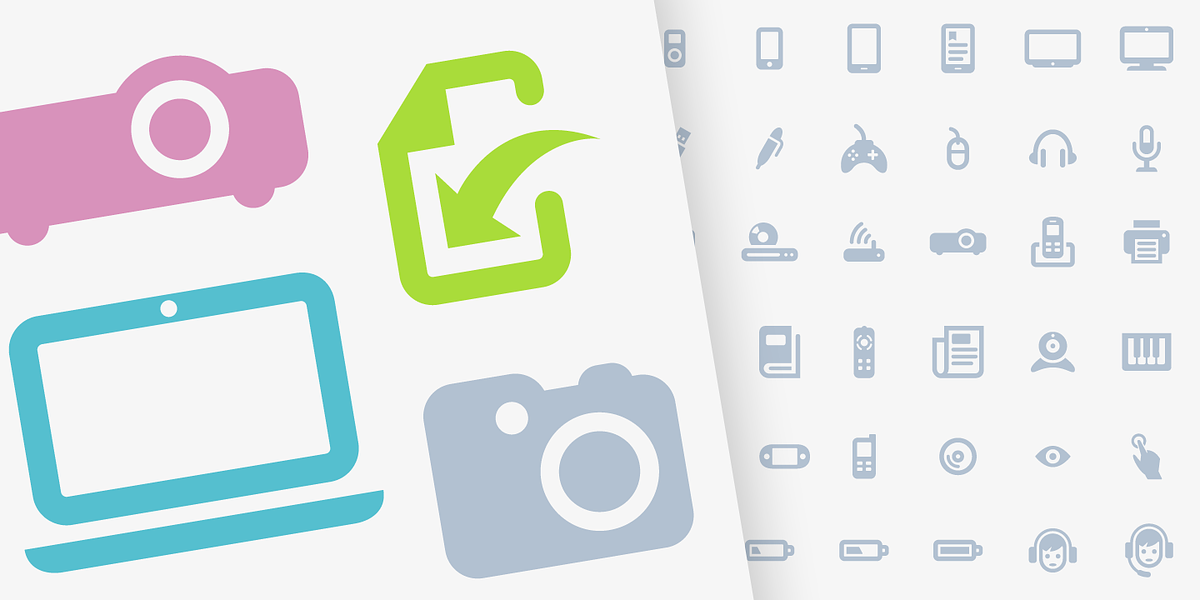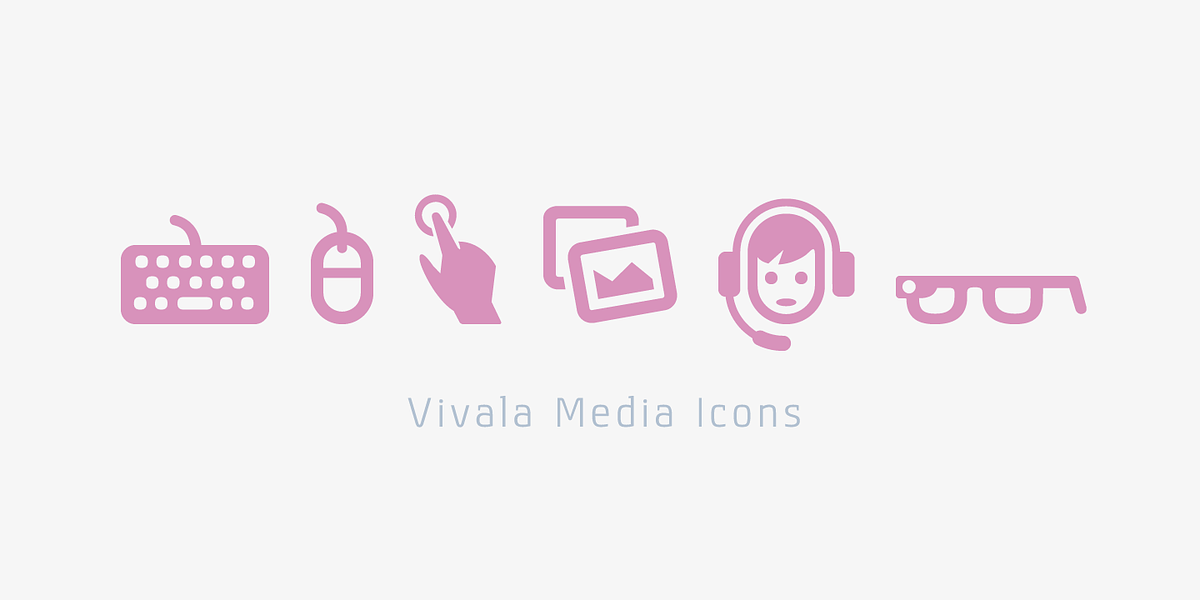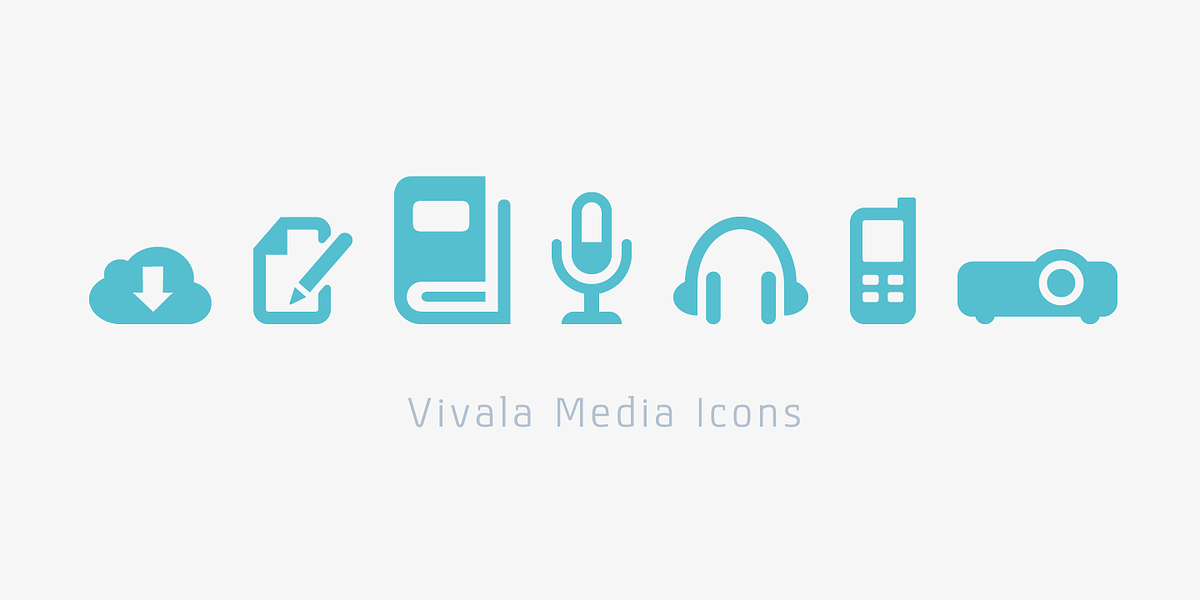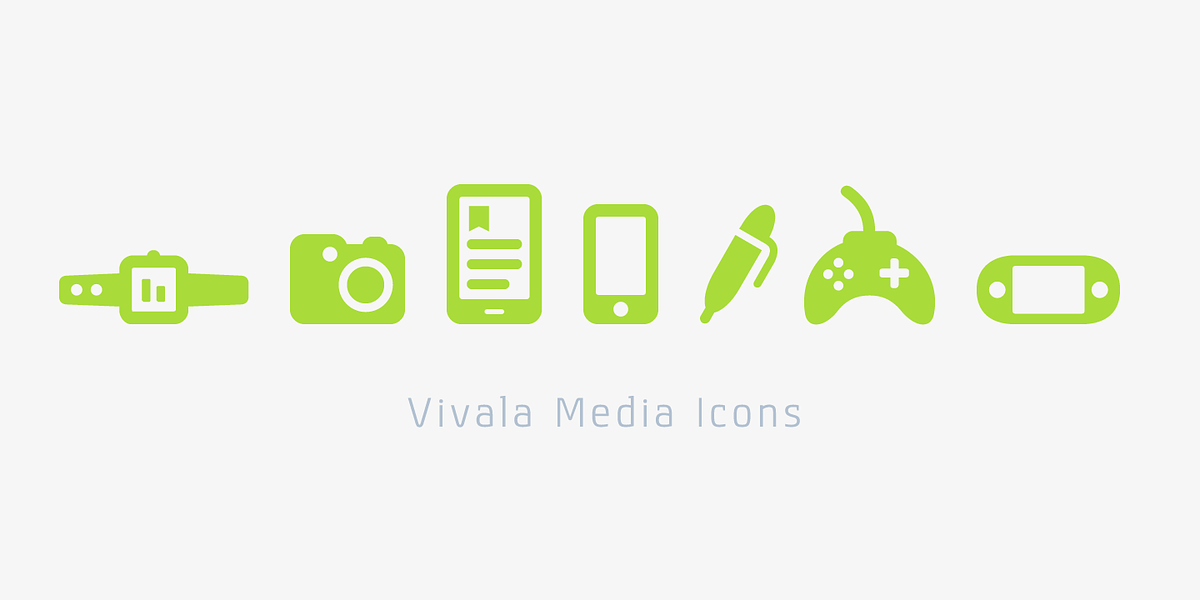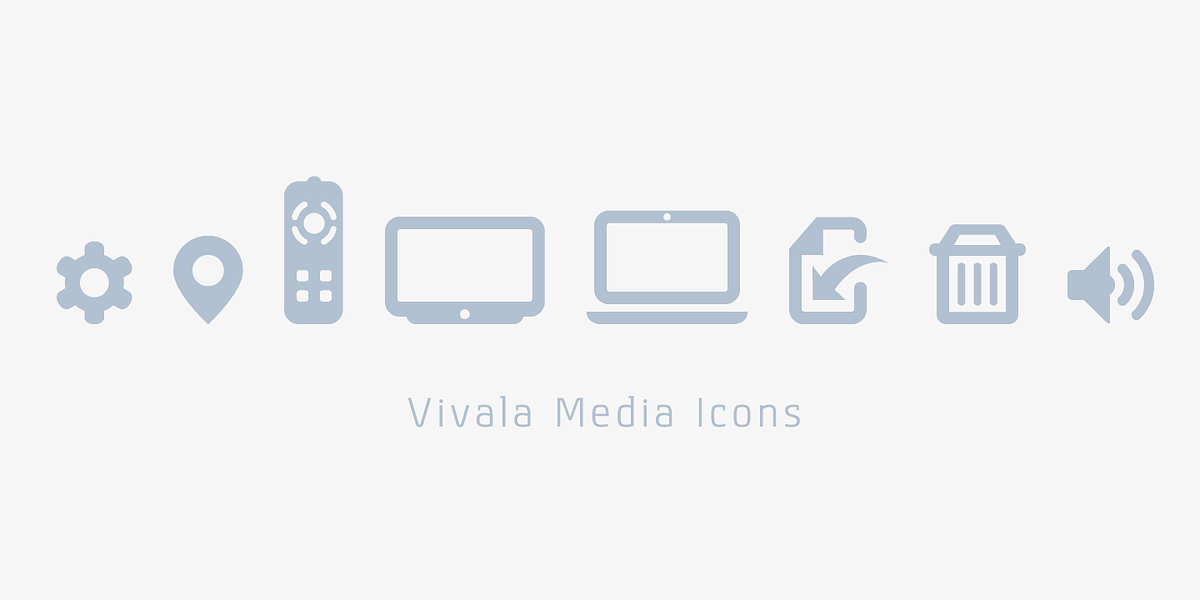
Vivala Media Icons
Vivala Media Icons is a collection of 106 symbols designed to represent various modern media devices and their functions. These icons cover controls like volume adjustment, brightness settings, and other commonly found features in multimedia interfaces.